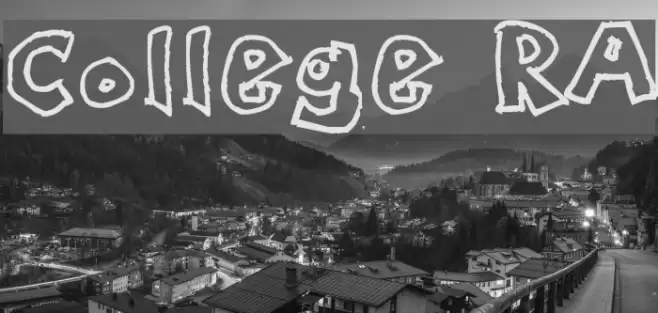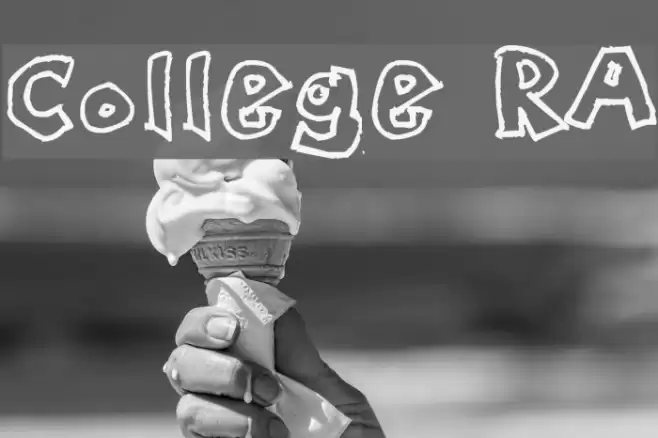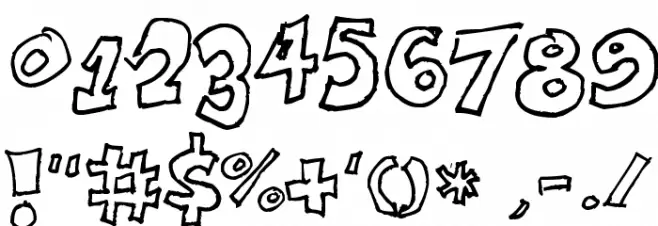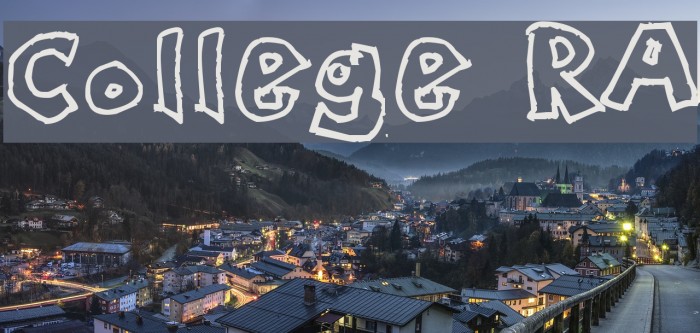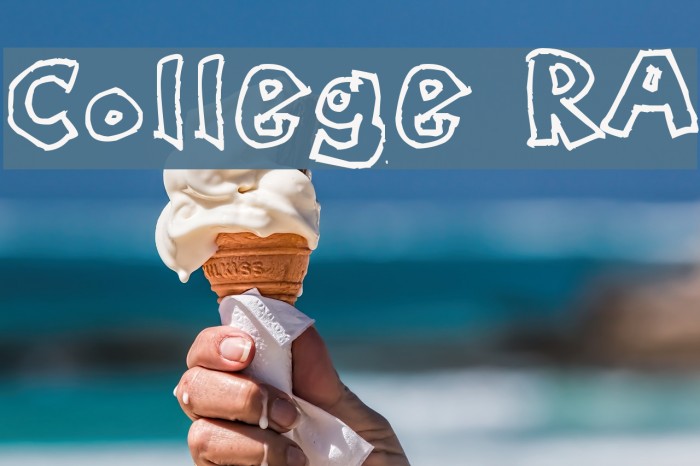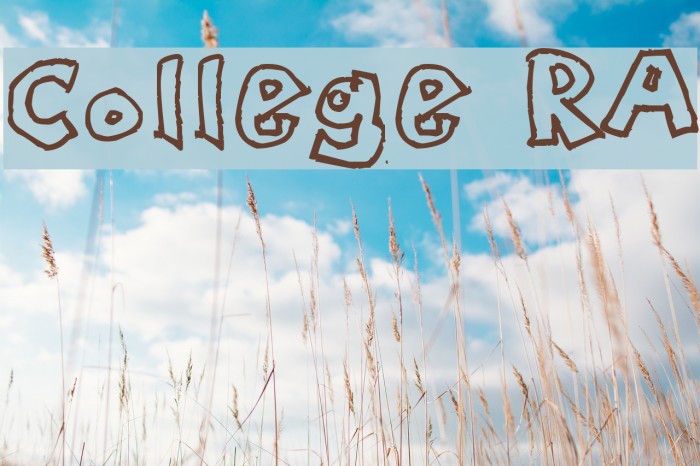
College RA Font
College RA Description
This font features a playful and bold style with a hand-drawn appearance. The letters are irregular and slightly tilted, giving them a casual and informal look. The strokes are thick and uneven, adding to the whimsical feel. The characters have a cartoonish quality, making them stand out with their unique and quirky design. The numbers and special characters follow the same playful theme, ensuring consistency across the font. This font is perfect for projects that require a fun and lively touch.
A playful, bold, hand-drawn font with a cartoonish style from Cartoon fonts.
- Proposed Projects: Ideal for children's books, comic strips, playful branding, and party invitations.
- Overall Style: Playful, Whimsical